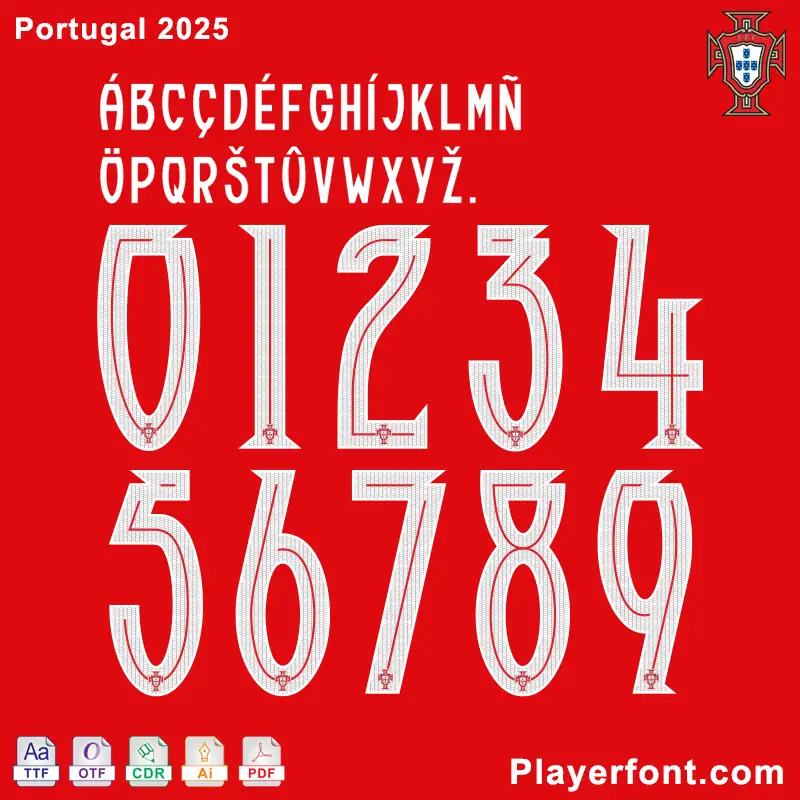
PUMA Portugal 2025 Font Download
Portugal 2025 Font Download: Official Typeface for Fans and Designers
Download the PUMA Portugal 2025 font for enhance your designs with a modern, sporty look. Inspired by Portugal’s iconic football team, this typeface blends boldness with elegance, making it perfect for sports-related projects, branding, or fan materials. Get the exclusive font today and bring a touch of Portugal’s football legacy to your creative work!
PUMA Portugal 2025 font – Custom typeface for football kitsPUMA Portugal 2025 Font Download